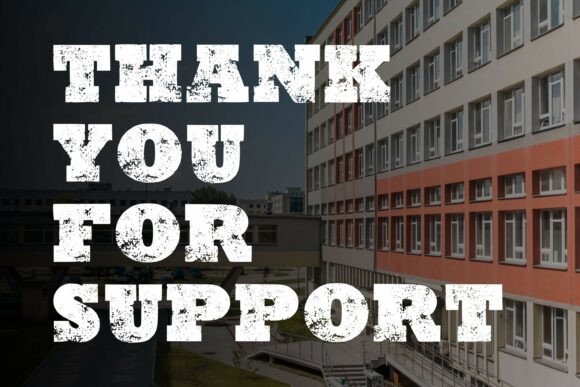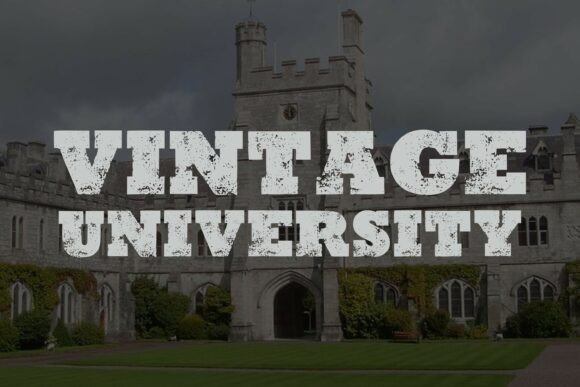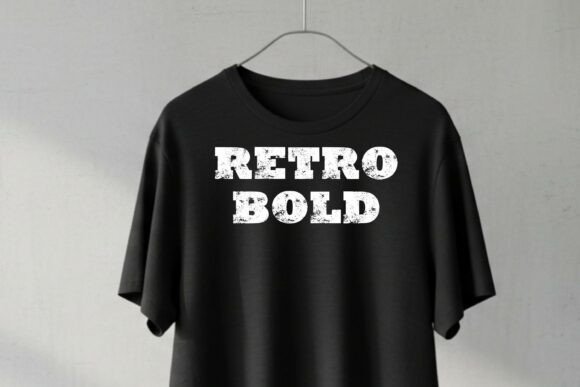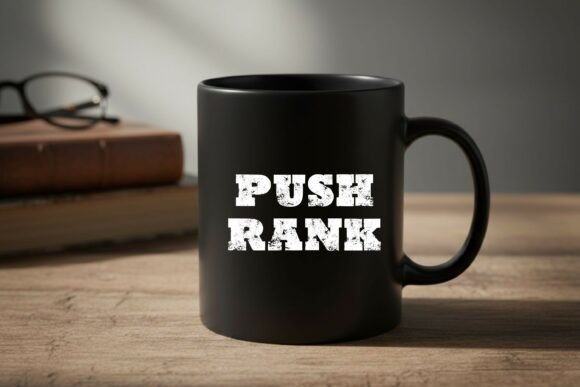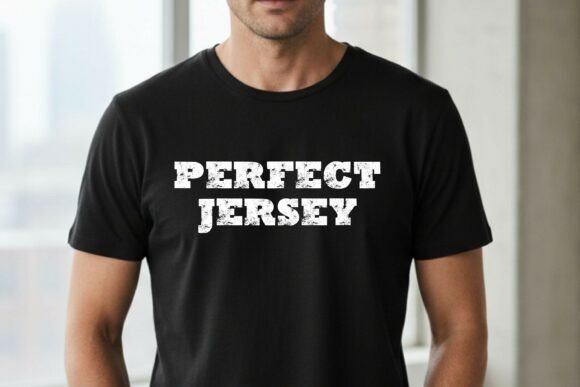
The Sound of Rebellion: Unleashing the Power of Grunge Basic Font
Have you ever been in the midst of a creative storm, surrounded by the hum of guitars, the thud of drums, and the raw energy of a live performance? For many designers, that moment is the spark that sets their imagination ablaze. It’s a feeling that cannot be replicated, only captured – and that’s exactly what the Grunge Basic Font aims to do.
This bold and distressed typeface is the perfect embodiment of the unbridled spirit of grunge culture. With its rough textures, imperfect edges, and fearless attitude, Grunge Basic Font is the ultimate tool for designers who want to inject some chaos and power into their designs. Whether you’re working on a poster, album cover, or streetwear branding, this font is the perfect companion to unleash your creativity and make a statement.
- Font Family: Grunge Basic Font is a unique, hand-crafted font designed to mimic the look and feel of distressed, grunge-inspired typography.
- Unique Characteristics: Distressed textures, subtle imperfections, and a worn, vintage aesthetic that adds a touch of authenticity to any design project.
Grunge Basic Font Review
Overall, I was pleasantly surprised by the Grunge Basic Font. Here are some things that really stand out to me:
- ✨ The font’s distressed, grungy aesthetic is spot on. It’s perfect for giving your designs a retro vibe.
- ✨ The font is highly customizable, allowing you to tweak the level of grunge to your liking.
- ✨ The font is well-suited for body text, making it a great choice for long-form content.
- ⚠️ The font may not be the best choice for titles or headings, as the grungy texture can make the text harder to read.
- ⚠️ Some users may find the font’s customization options overwhelming or difficult to use.
Overall, I’d give the Grunge Basic Font 4 out of 5 stars. It’s a solid choice for designers looking to add some grit to their designs, but may not be the best fit for every project. With a little experimentation and patience, you can get some really great results with this font.
Tip: Use the Grunge Basic Font to add a distressed look to your text in Canva. It pairs well with bold, eye-catching graphics.
Tip: Experiment with layer blending modes and opacity to achieve a unique, grungy effect.
Tip: Use the Grunge Basic Font to add a touch of grunge to your presentation or document. It’s perfect for creative or artistic projects.
The Grunge Basic Font is perfect for:
- Creative or artistic projects
- Music or band logos
- Rock or grunge-themed designs
- Distressed or vintage-inspired designs